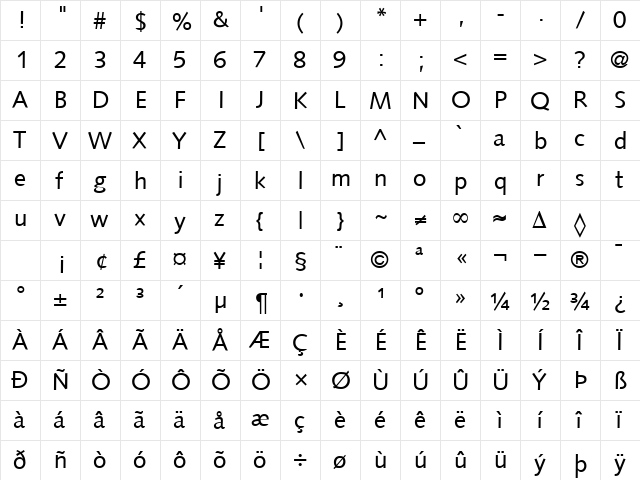
SyntaxTwo Regular
Design Context for SyntaxTwo Typeface
SyntaxTwo is a composed and adaptable typeface that performs quietly and consistently across a wide range of design contexts.